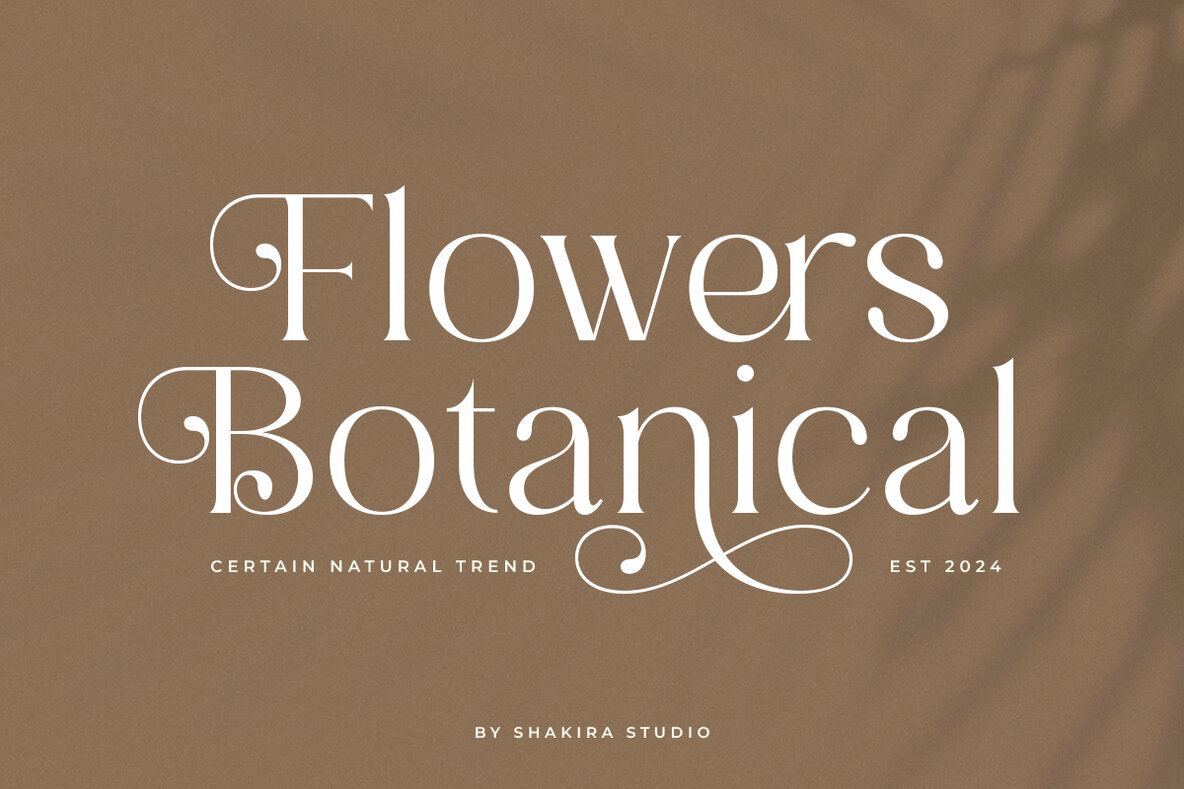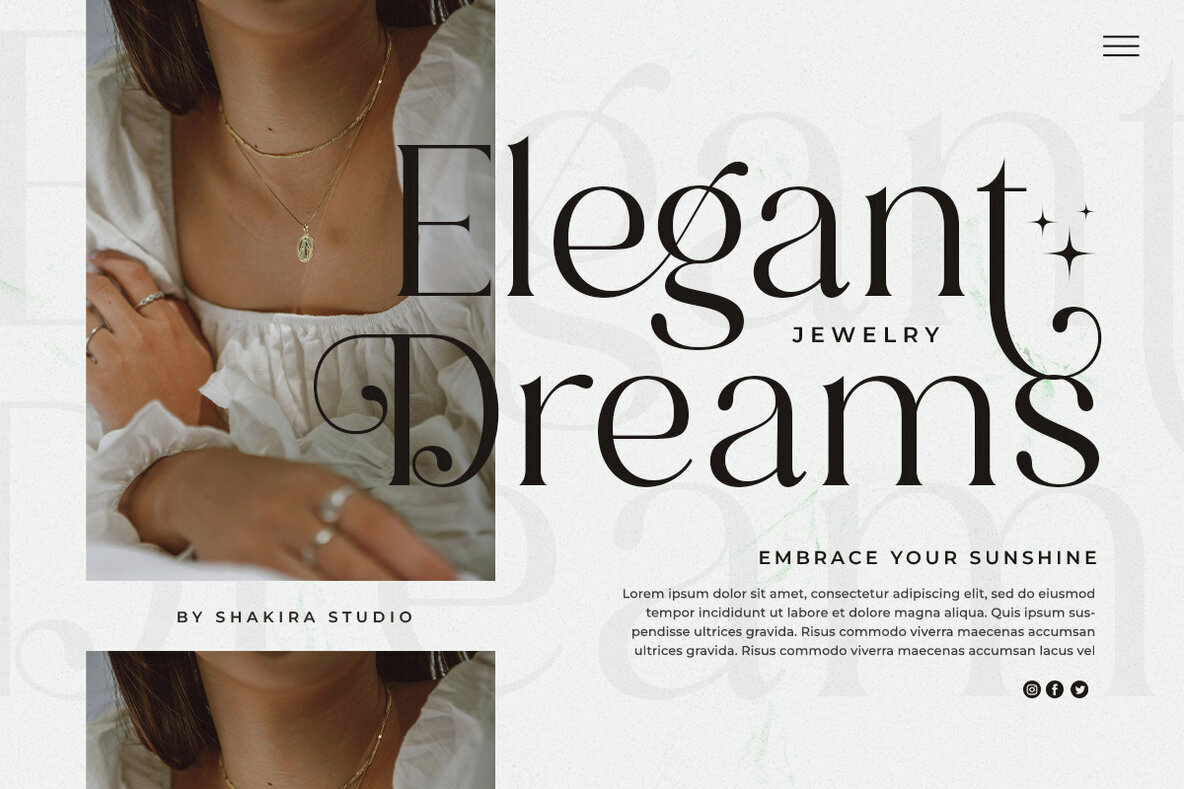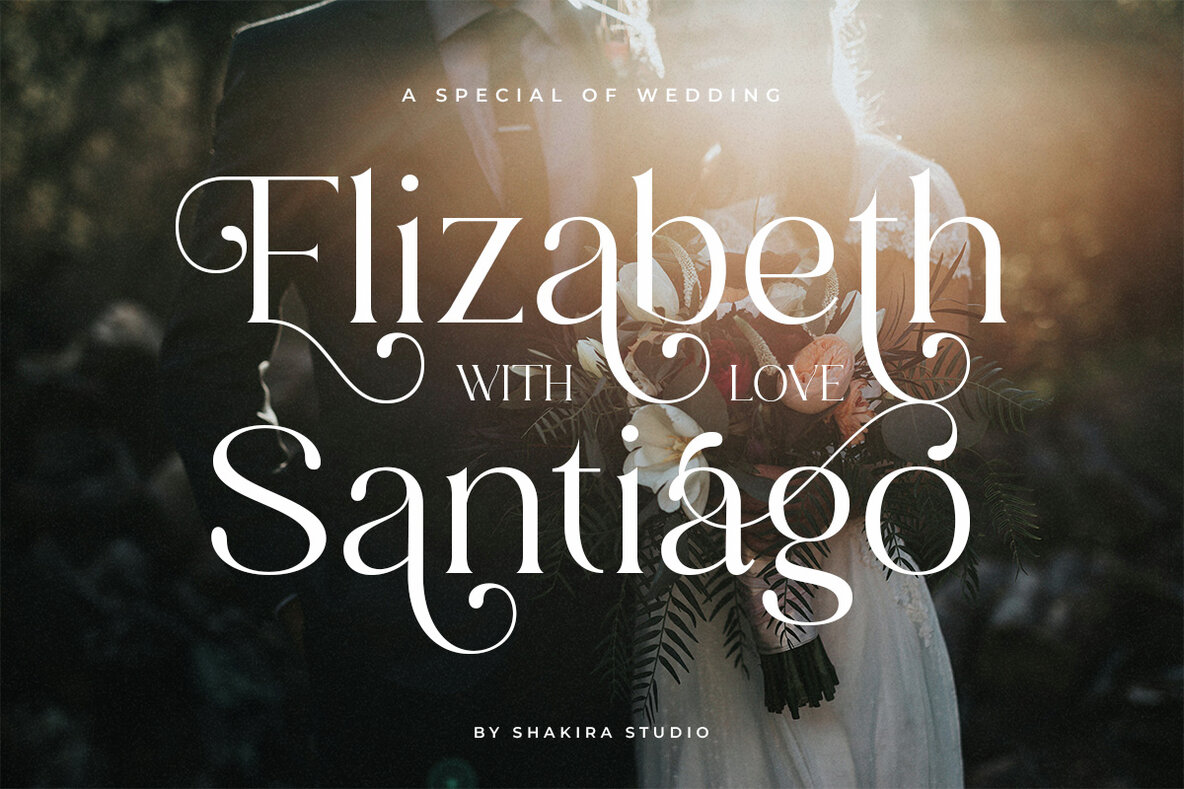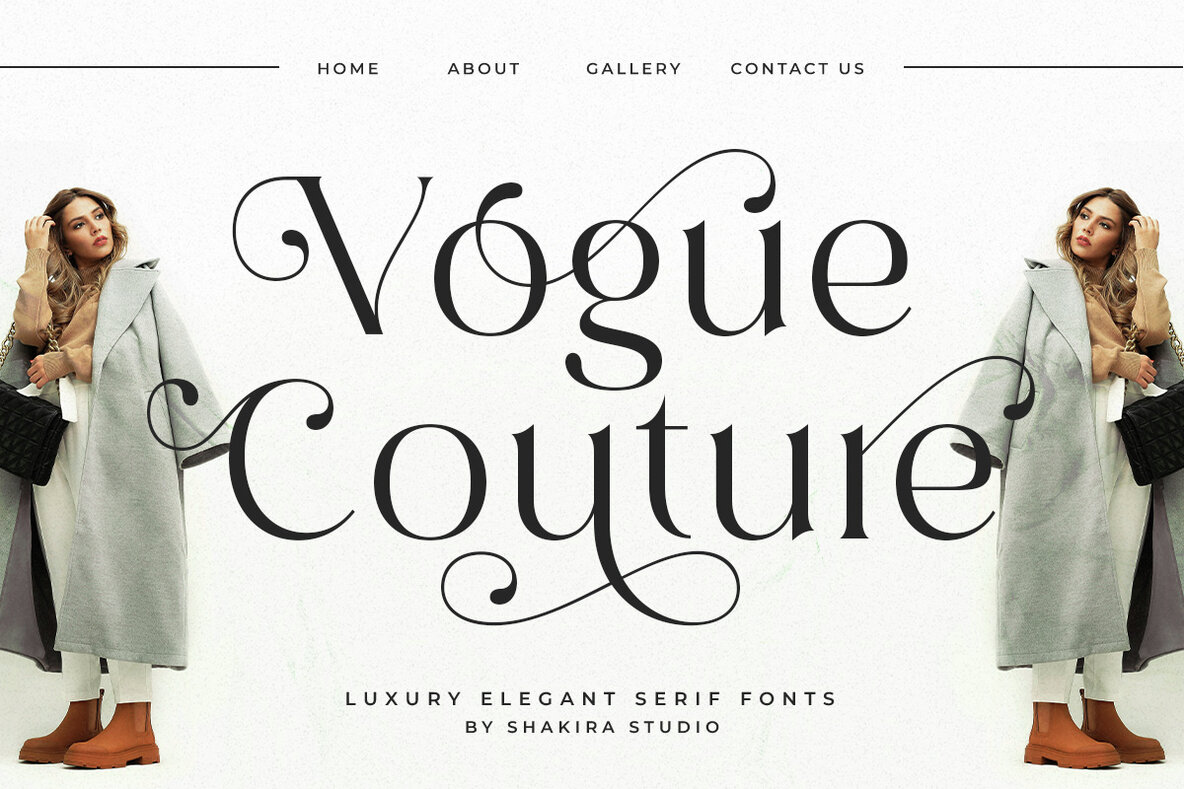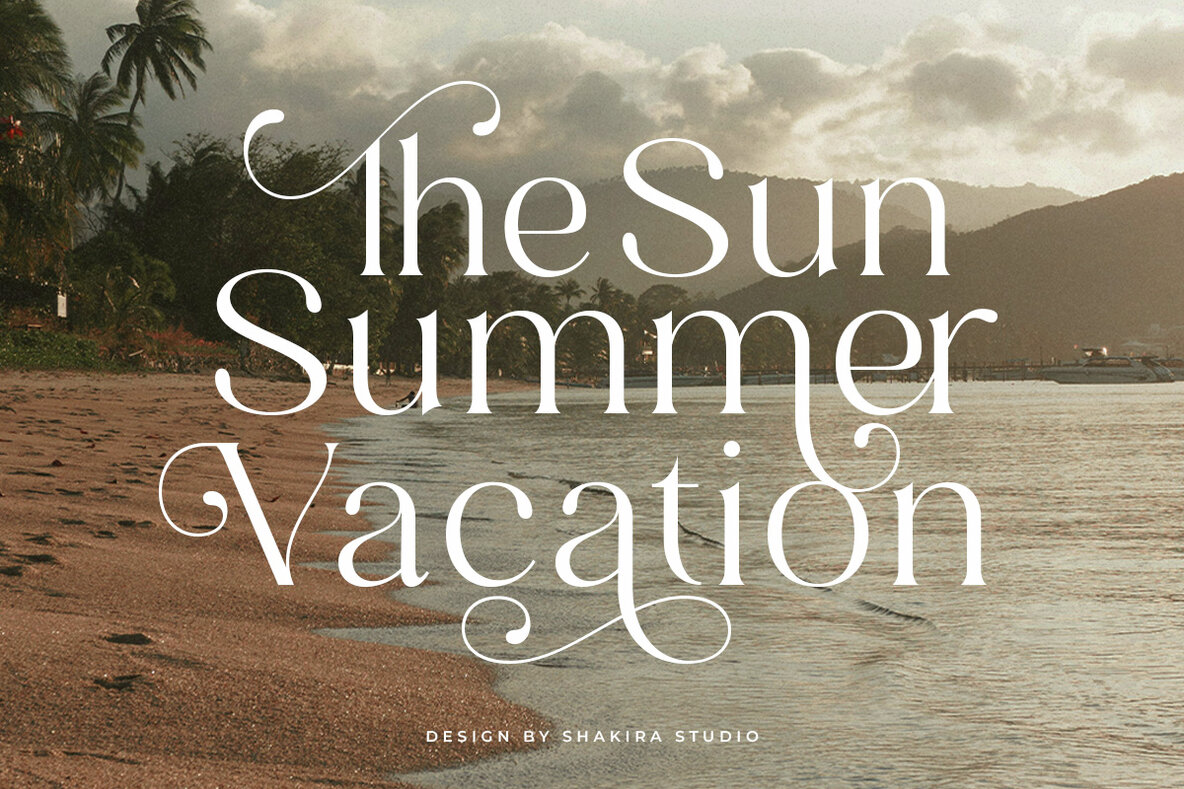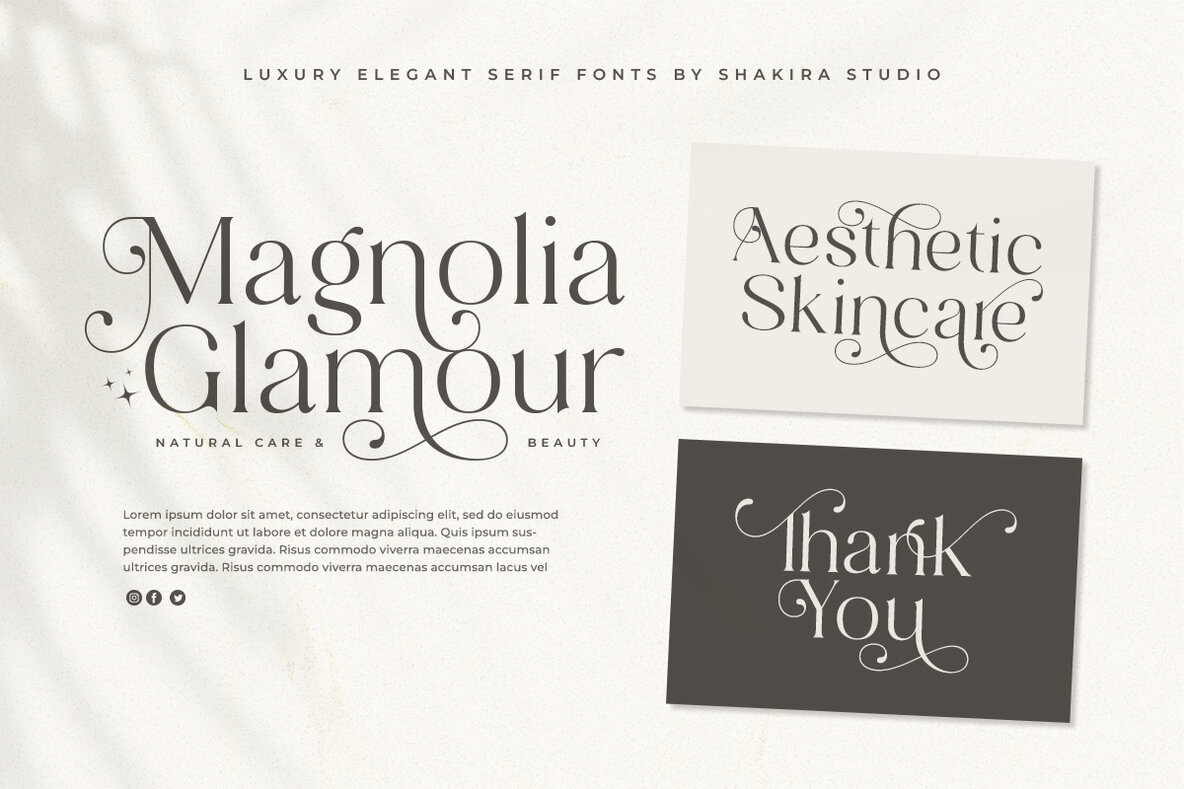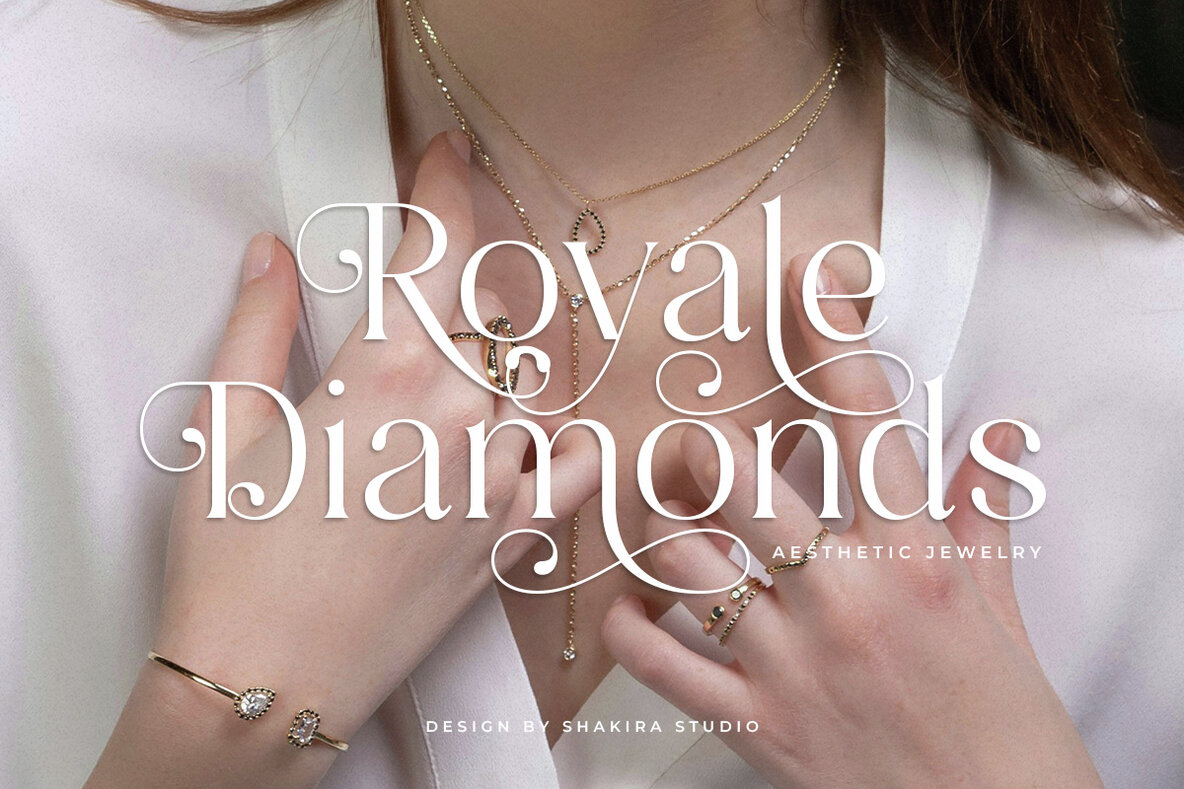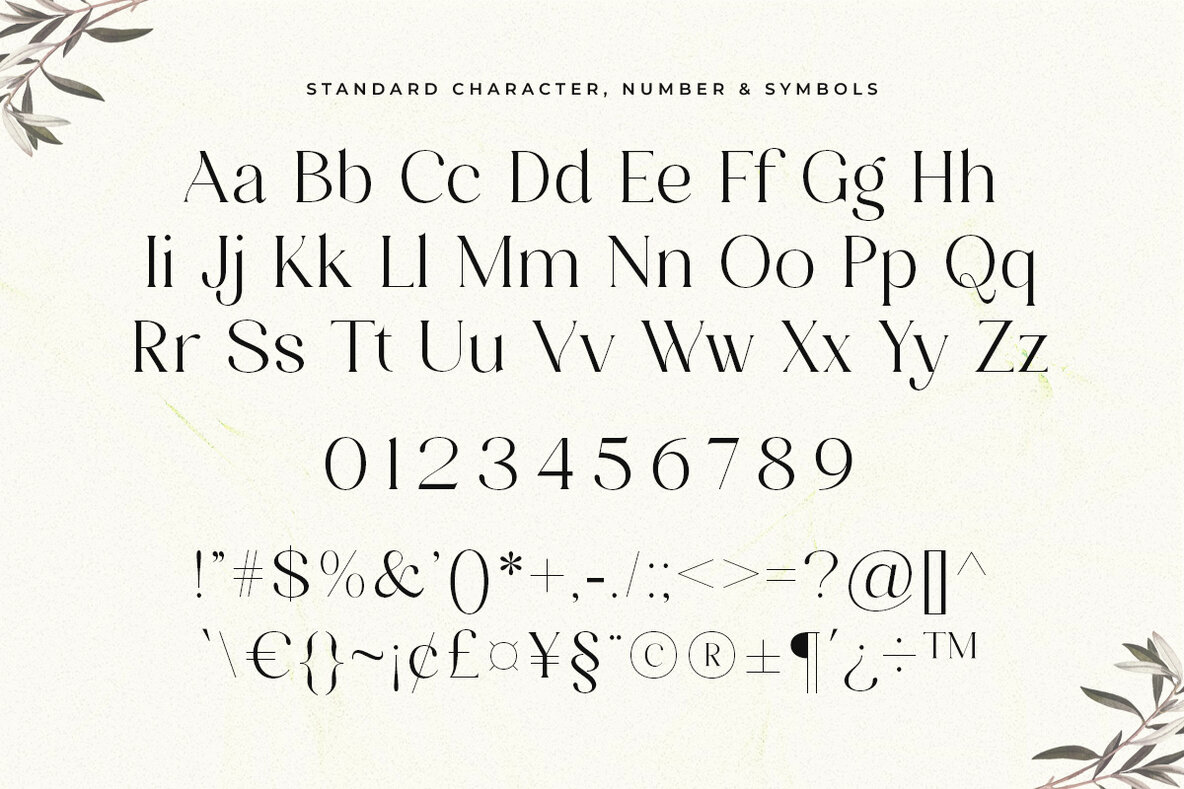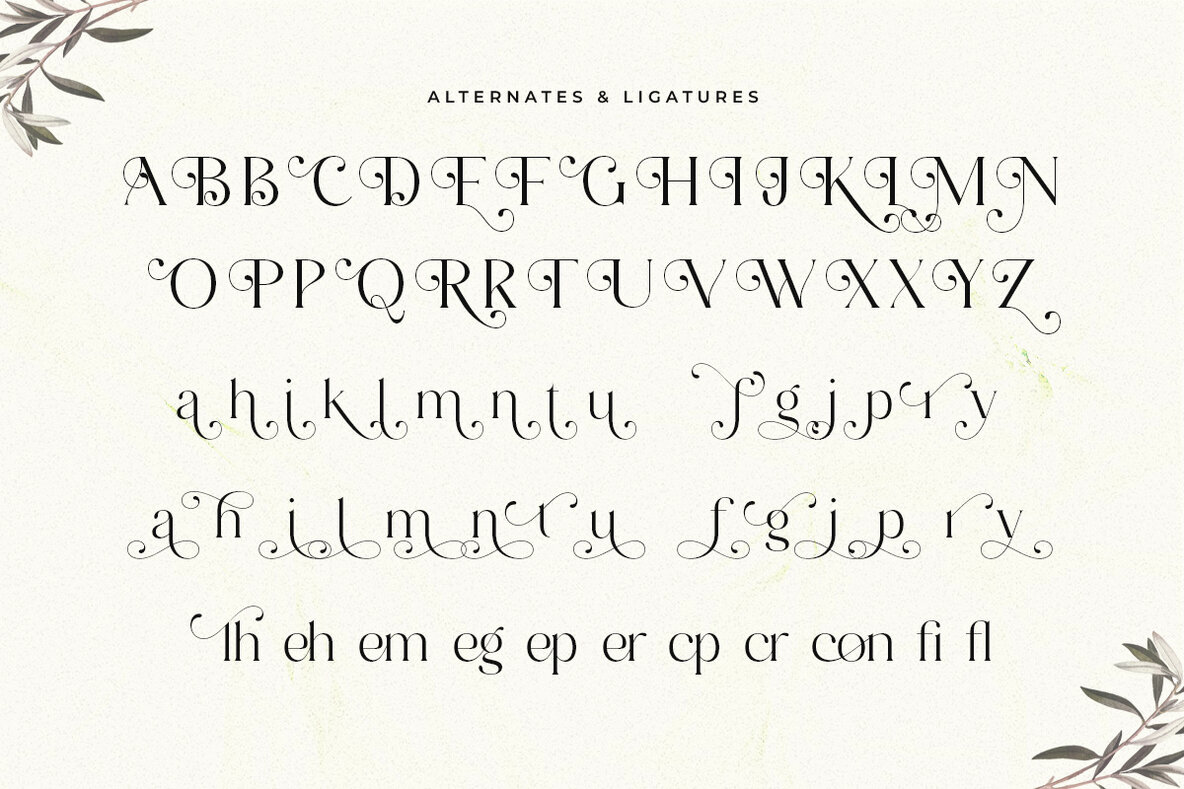
Magnolia Glamour Font
Sophistication Meets Typography: Unveiling Magnolia Glamour by Shakira Studio
Introducing the exquisite elegance of Magnolia Glamour‒an exceptional blend of luxury and typography that seamlessly births sophistication in design. Brought to you by the exceptionally creative Shakira Studio, this isn’t merely a font, but rather, a statement of opulence and class targeting the discerning eyes of graphic designers and marketing firms.
Every stroke and curve of Magnolia Glamour exudes an aura of #ElegantLuxury, transforming ordinary designs into #TypographyTreasures. Unleash the Epitome of Elegant Luxury in Typography, and make your designs a testament to your taste!